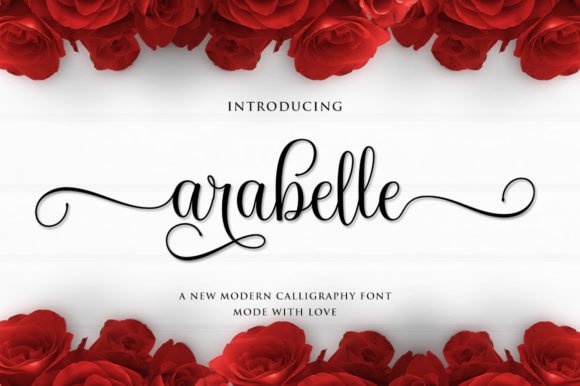
The Sweet Allure of Arabelle Font
Remember that moment when you stumbled upon the perfect font for your project, and it just clicked? For designers, it’s like finding a needle in a haystack – a moment of pure bliss. For me, that moment came when I discovered the enchanting Arabelle Font. This sweet, romantic calligraphy typeface is a breath of fresh air, with characters that dance along the baseline, adding a casual yet elegant touch to any design.
Arabelle Font is more than just a pretty face; it’s a versatile tool that can be used for a wide range of purposes, from logos and wedding invitations to headers, t-shirts, and signboards. Its charm lies in its ability to add a personal touch to any project, making it a valuable asset for designers looking to create unique and memorable designs.
Arabelle Font Key Features
- Font Style: Script, Handwritten
- Unique Characteristics: Elegant, cursive script with subtle flourishes and ligatures, ideal for creative and artistic projects
Arabelle Font Review
Overall, I think the Arabelle font is a lovely addition to any design project. ✨ One of the things that stands out to me is its elegant and feminine feel, which makes it perfect for wedding invitations, bridal showers, and other feminine events.
- Highly legible and clear, making it easy to read even at smaller font sizes.
- The font’s curves and flourishes add a touch of sophistication and whimsy, making it perfect for designs that require a bit of flair.
- Works well in both print and digital formats.
That being said, I do think there are some limitations to the Arabelle font. ⚠️ One of the main issues I’ve noticed is that it can be a bit overused, and it may not be the best choice for designs that require a more modern or edgy feel.
- May not be the best choice for designs that require a bold or dramatic look.
- Can be a bit too feminine for some designs, making it less versatile than other fonts.
- May require some additional design elements to add contrast and interest.
Overall, I think the Arabelle font is a solid choice for designers looking for a elegant and feminine font. While it may have some limitations, I think its unique feel and high legibility make it a great addition to any design project.
Getting the Most Out of Arabelle Font
Use Arabelle Font for titles, headings, and quotes to add a touch of elegance to your designs. Experiment with different font sizes and styles to create visual interest. Combine Arabelle Font with other fonts to create a unique and sophisticated typography.
Use Arabelle Font for:
Branding and marketing materials
Editorial and publishing designs
Formal events and announcements
Alternatives to Arabelle Font
Great Vibes Font is a modern, elegant script font that works well for branding, invitations, and wedding designs. It’s perfect for creating a sophisticated and romantic atmosphere. Great Vibes Font is more cursive and elegant than Arabelle Font, with a more refined and polished look.
Carolyna Pro Font is a high-end script font that’s ideal for luxury brands, fashion, and high-end designs. It’s a more dramatic and ornate font compared to Arabelle Font, with a greater emphasis on flair and sophistication. Carolyna Pro Font is perfect for creating a sense of opulence and grandeur.
Alex Brush Font is a elegant and refined script font that’s perfect for creating a sense of sophistication and elegance. It’s more subtle and understated than Arabelle Font, with a greater emphasis on simplicity and clean lines. Alex Brush Font is ideal for branding, packaging, and editorial designs.
Ostrich Sans Font is a modern and bold sans-serif font that’s perfect for creating a sense of energy and dynamism. It’s more geometric and angular than Arabelle Font, with a greater emphasis on clean lines and minimal ornamentation. Ostrich Sans Font is ideal for tech, gaming, and sports designs.